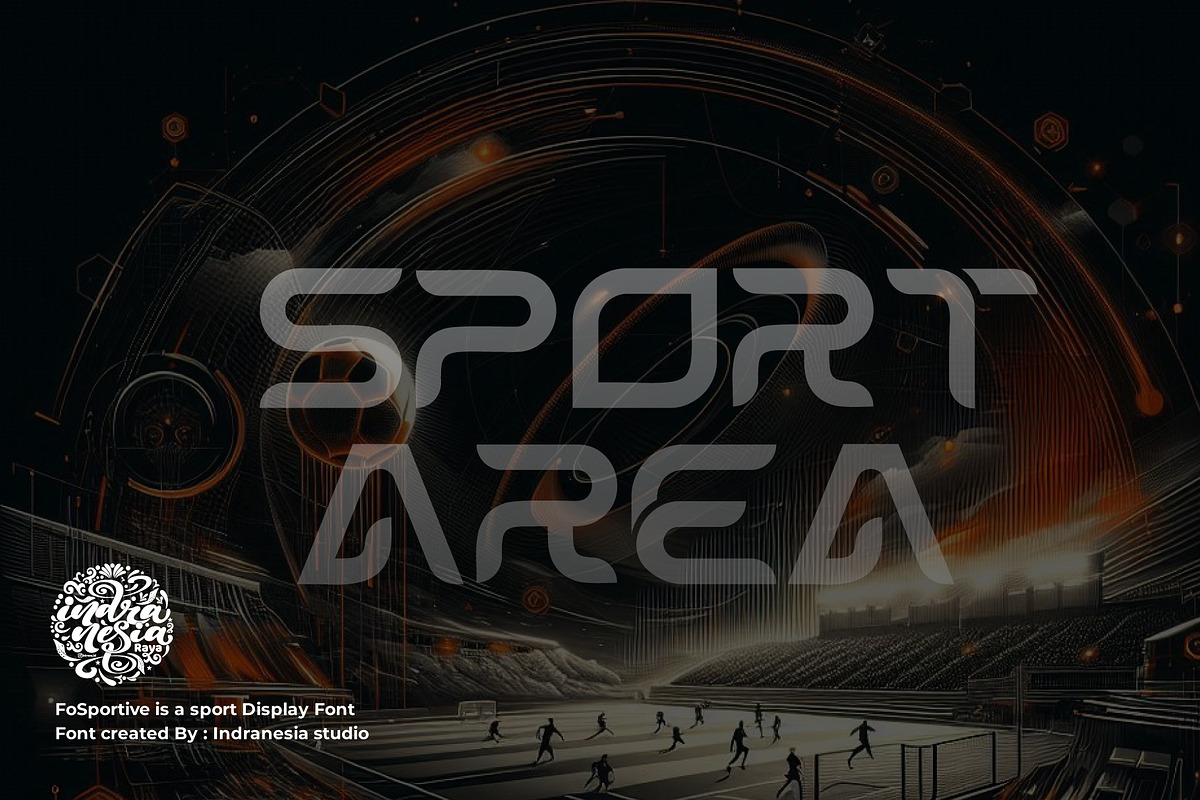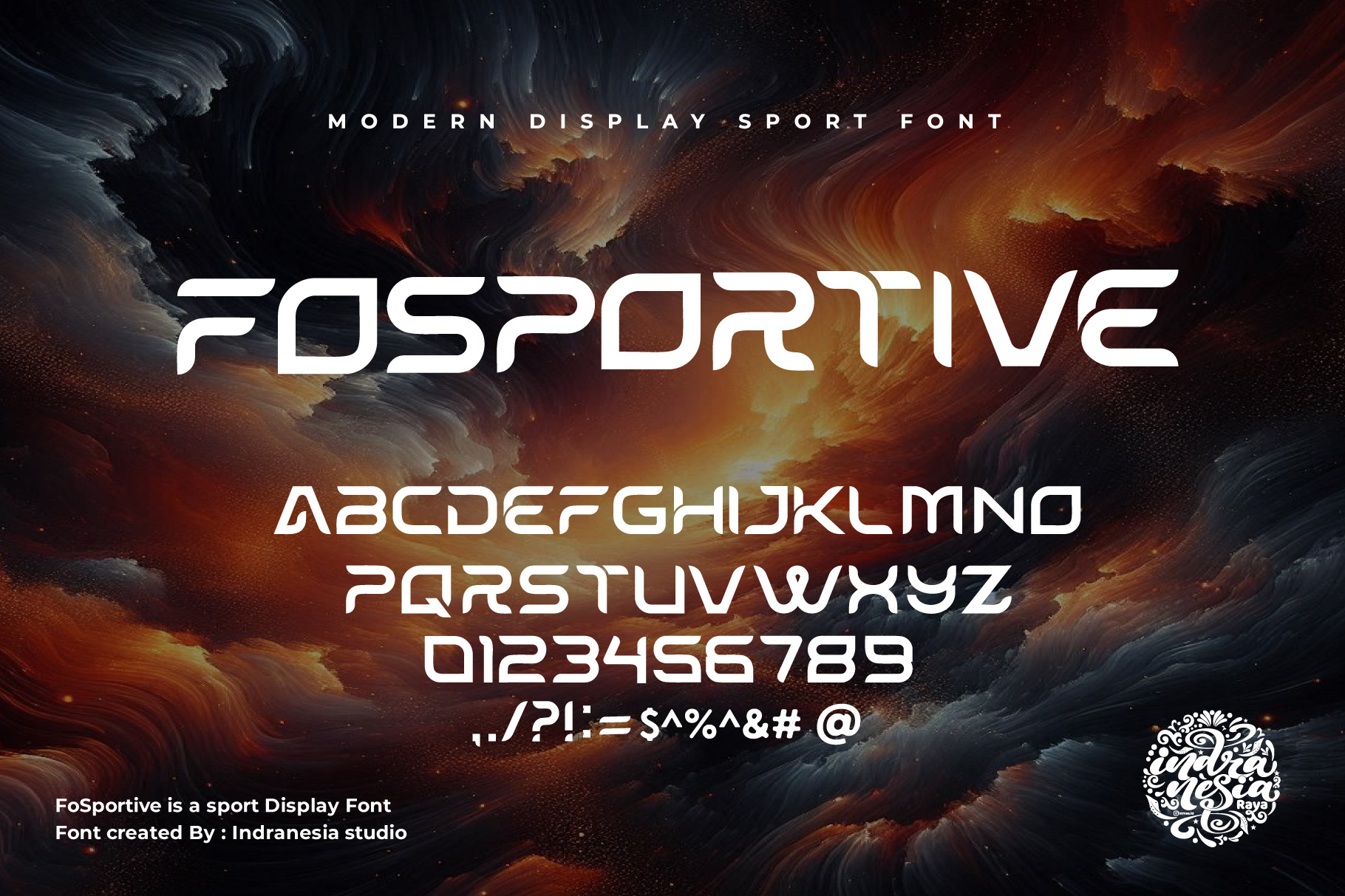
Fosportive display Sport Font
Fosportive is a stunning modern sports font, modern cut, Ideal for fast car racing sports titles, soccer, jerseys, running matches, cycling, automotive game logos and monograms or other modern dynamic texts. fosportive is better compared to readability and size, creating an effect of strength and sporty style. Designed as a masculine and dynamic font, but with a slightly different font design, see and grab it immediately.
- All caps font.